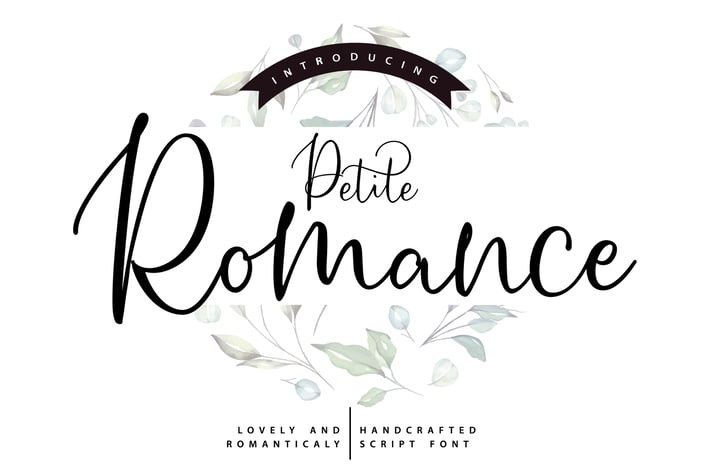
Petite Romance | Handcrafted Script Font
Petite Romance | Handcrafted Script Font with a calligraphy style, So beautiful on invitation like greeting cards, branding materials, business cards, quotes, posters, and more!